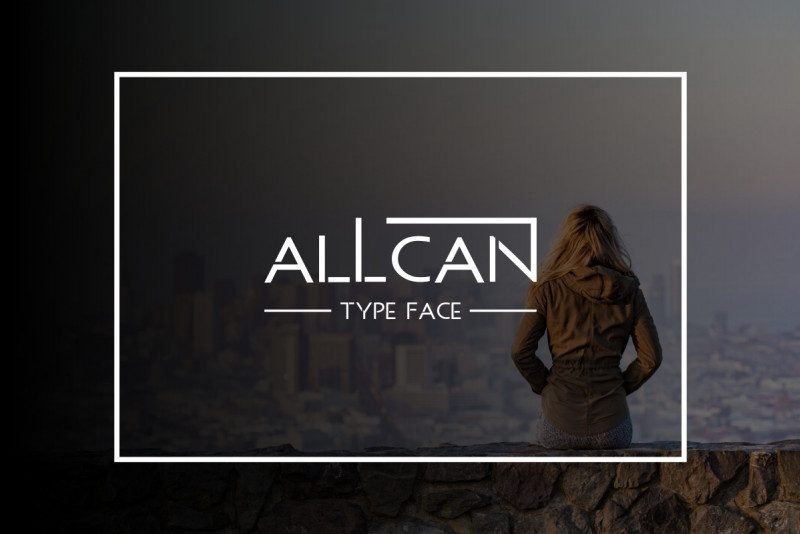
ALLCAN Typeface
Introducing, our first Serif family font : AllCan. With a sharp edges, this font looks Modern and elegant. This is great choice for any document works: resume, letterhead, headline, magazine, flyer, corporate clients. It’s also perfect for branding, logo, photography and signature. It is so elegant, classy, strong and beautiful.